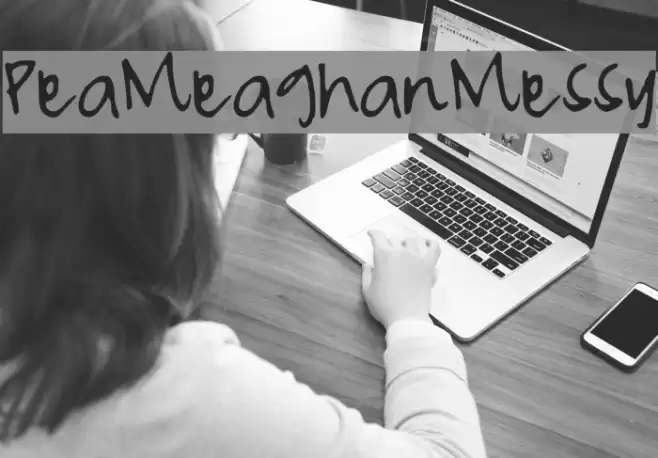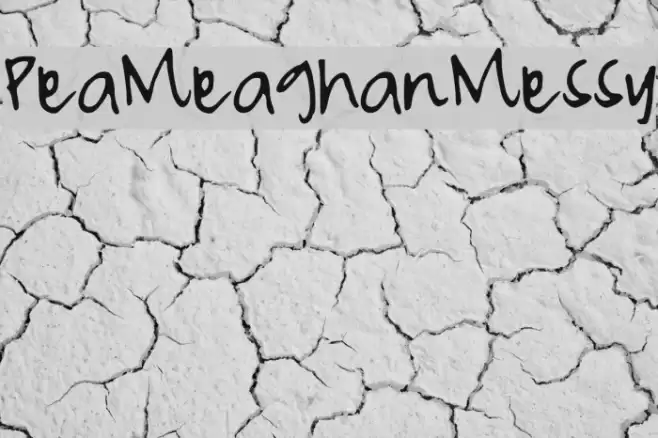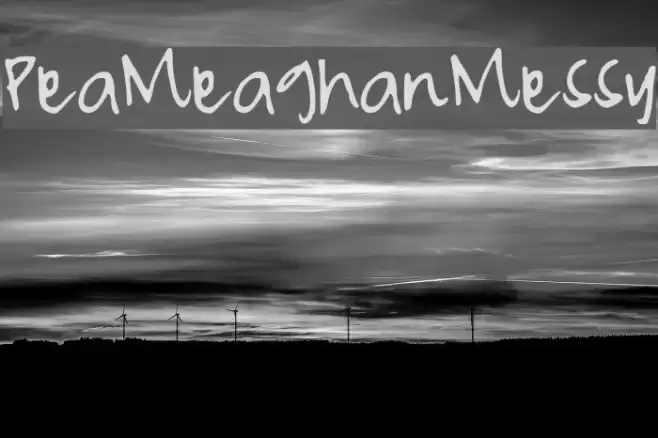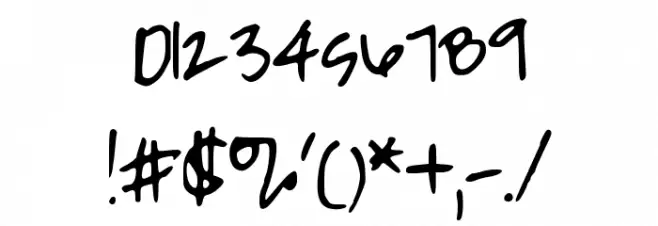
PeaMeaghanMessy Font
PeaMeaghanMessy Description
This font exudes a casual, handwritten style with a playful and informal appearance. The letters are unevenly spaced, giving it a natural and spontaneous look. The strokes are smooth and slightly irregular, mimicking the flow of handwriting. The uppercase and lowercase letters are distinct yet harmonize well together, maintaining a consistent style throughout. Numbers and special characters are crafted with the same casual flair, ensuring a cohesive appearance across all text elements. This font is ideal for projects that require a personal touch or a relaxed, friendly vibe.
A playful, handwritten font with a casual and informal style from Uncategorized fonts.
- Proposed Projects: Great for personal notes, invitations, greeting cards, and social media graphics.
- Overall Style: Casual
- Use Case: Logos, Headlines, Informal Text